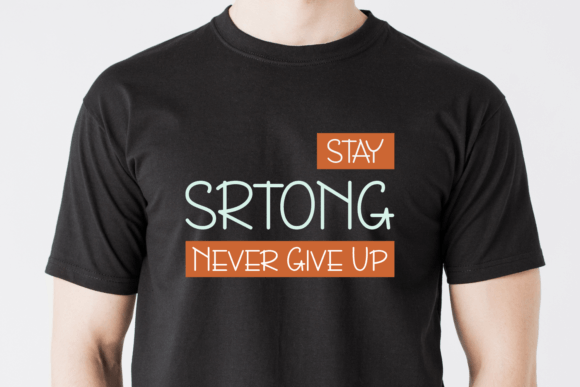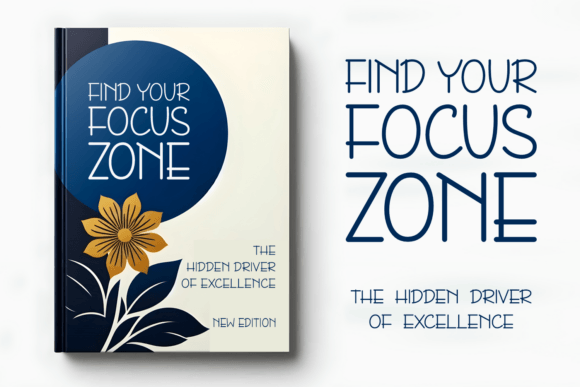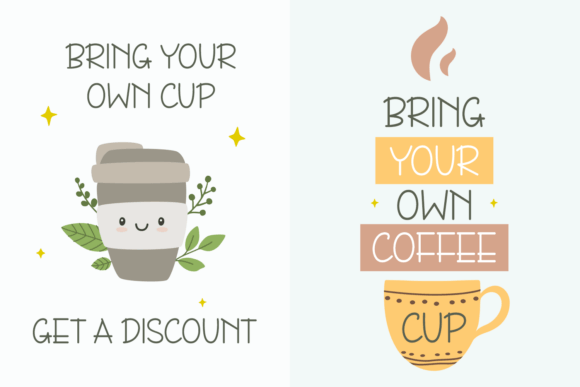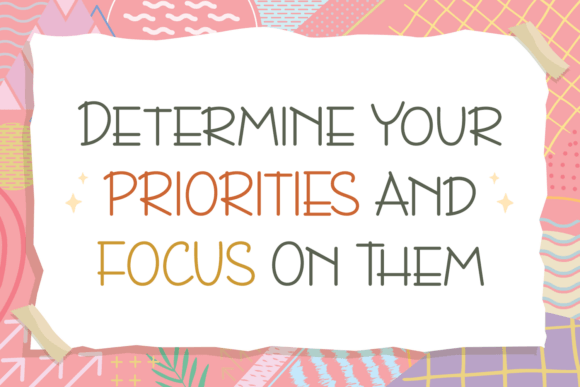
Introduction to Dynamic Creative Font
Dynamic Creative is a casual handwritten font that exudes personality and flair.
With its smooth, flowing strokes and playful curves, it brings warmth and originality to any design Perfect for logos, invitations, branding, and social media, it adds a stylish, artistic touch effortlessly.
Key Features of Dynamic Creative Font
Why Choose Dynamic Creative Font?